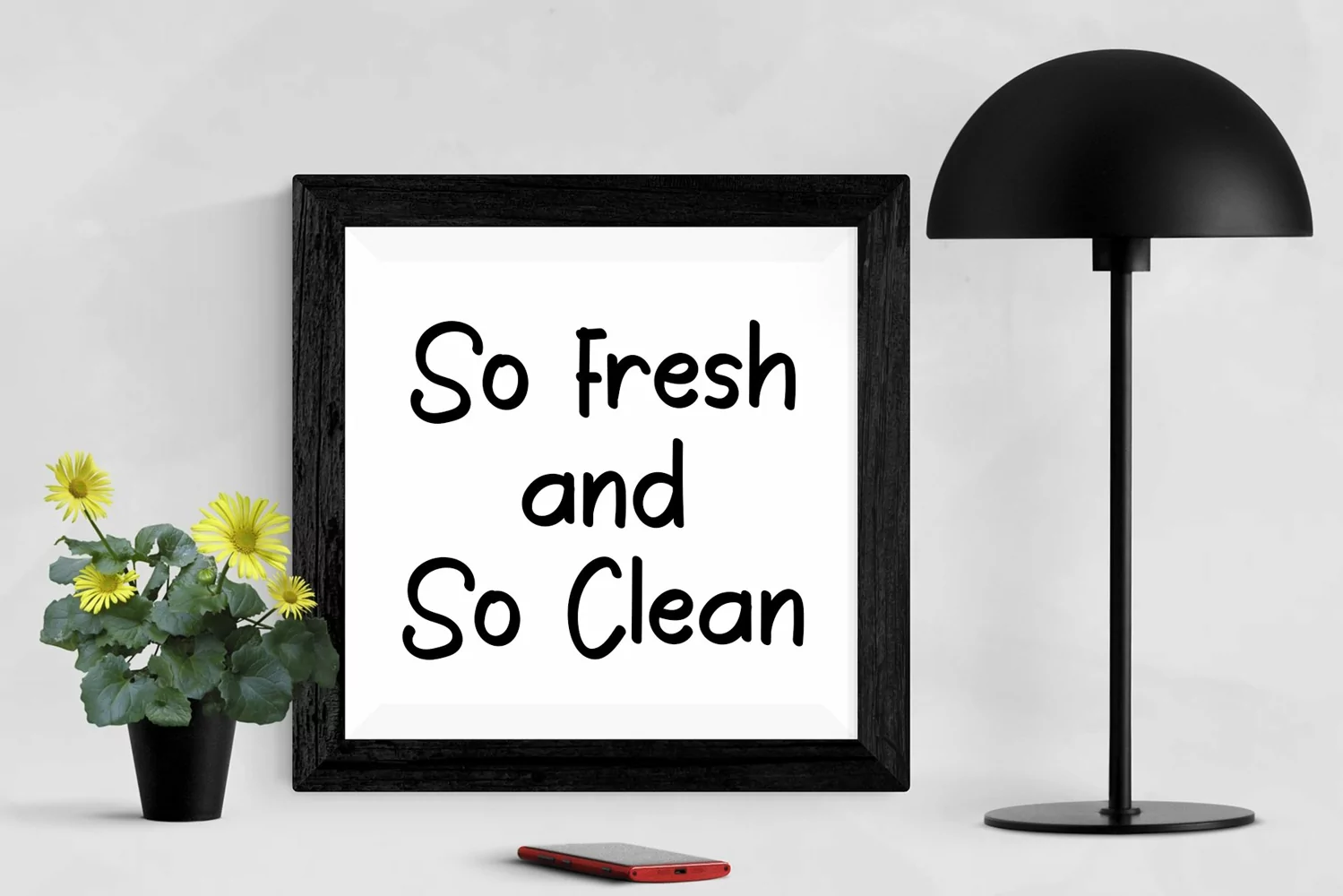
Magic Rainbow
Introducing, this is our newest product, we call this product Magic Rainbow,
It looks amazing with sweet touches and beautiful curves in each letter. Magic Rainbow fonts are perfect for: wedding invitations, fashion magazines, logos, signatures, photography, watermarks, wall displays, social media,